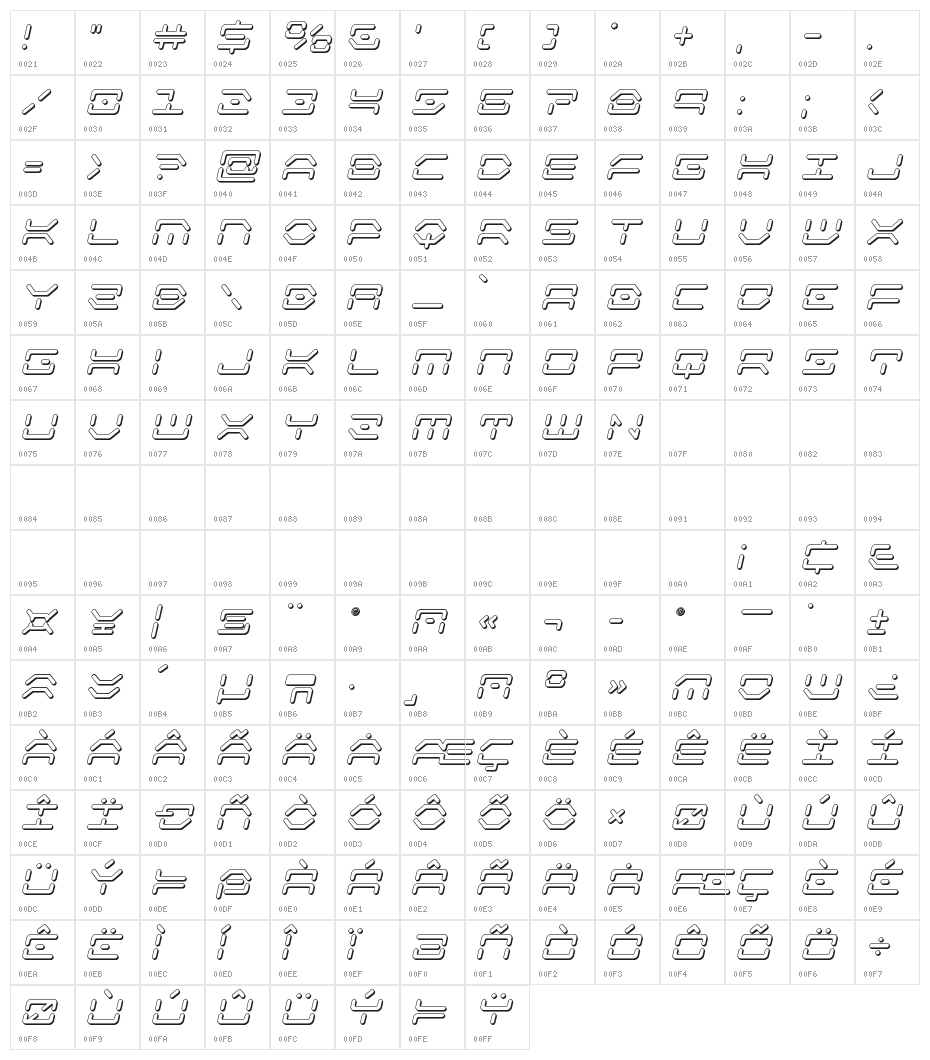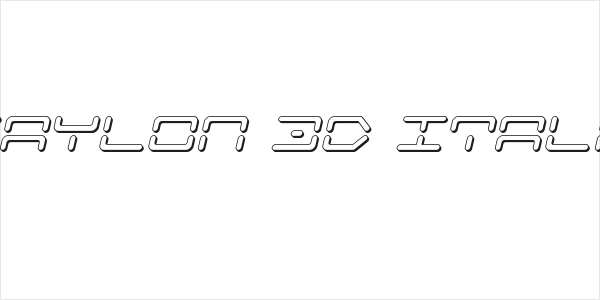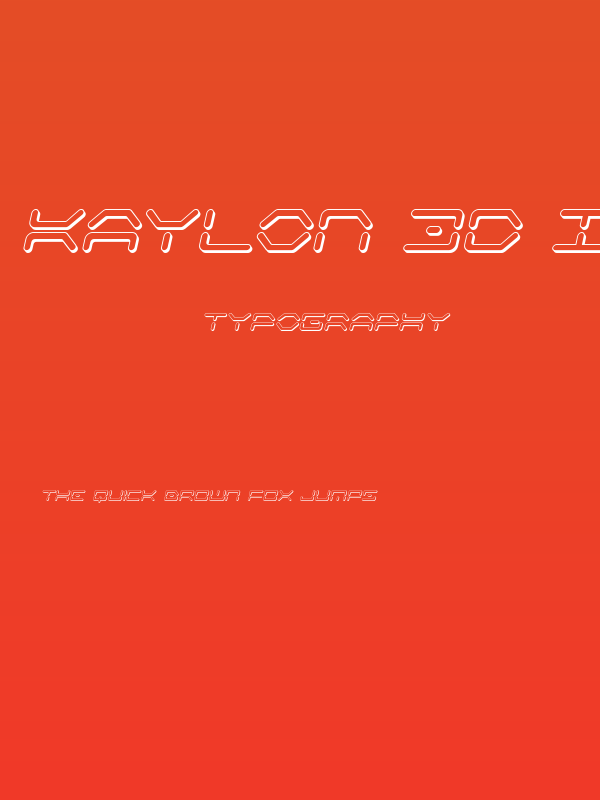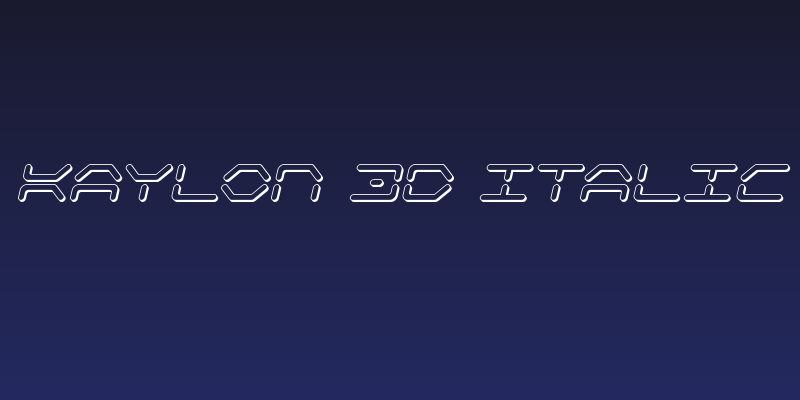
Kaylon 3D Italic Font
Kaylon 3D Italic Description
This font features a futuristic and geometric design with a 3D effect, characterized by its hollow, outlined letters. The characters have a consistent angular style, with rounded corners that add a sense of fluidity and modernity. The italic slant gives it a dynamic and forward-moving appearance, enhancing its contemporary feel. The font maintains a uniform stroke width throughout, contributing to its clean and structured look. Its unique style is ideal for projects that require a cutting-edge and innovative aesthetic.
| Proposed Projects | Ideal for sci-fi themed posters, technology branding, video game titles, and modern digital interfaces. |